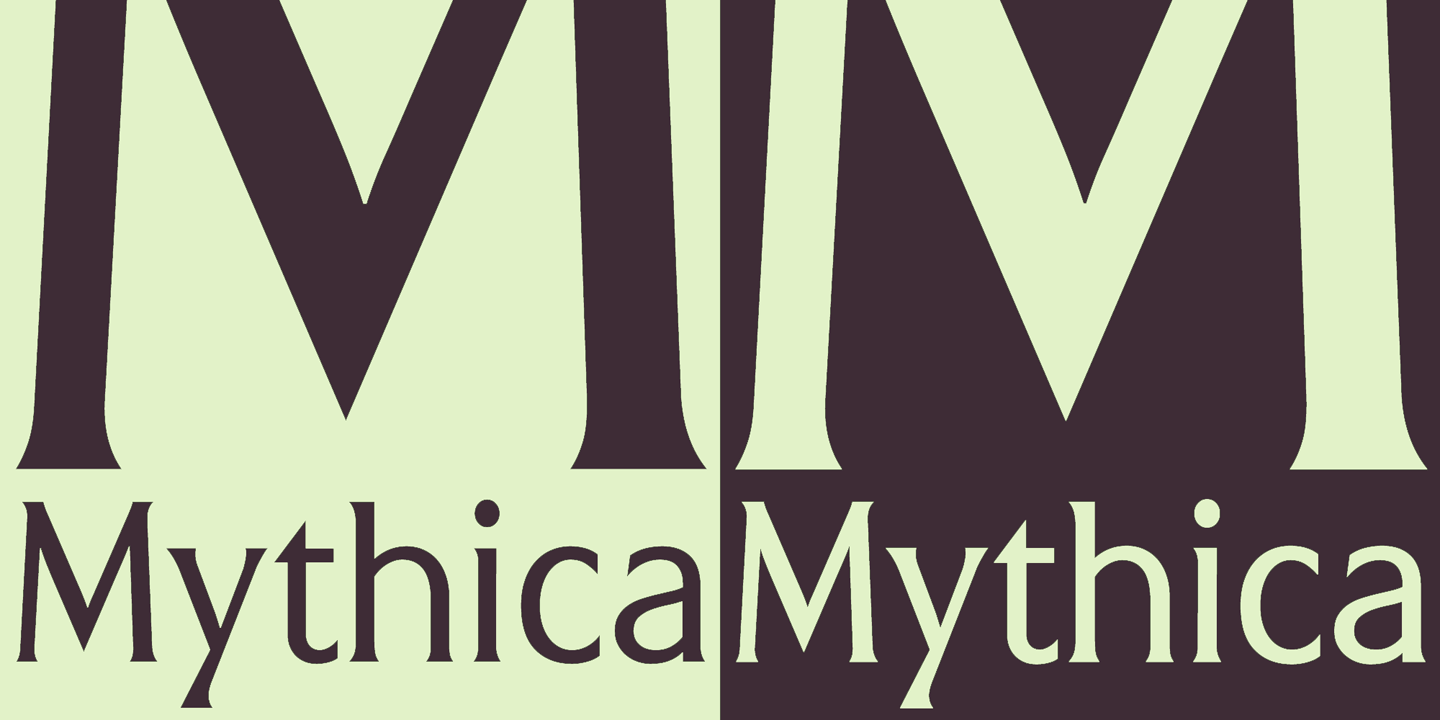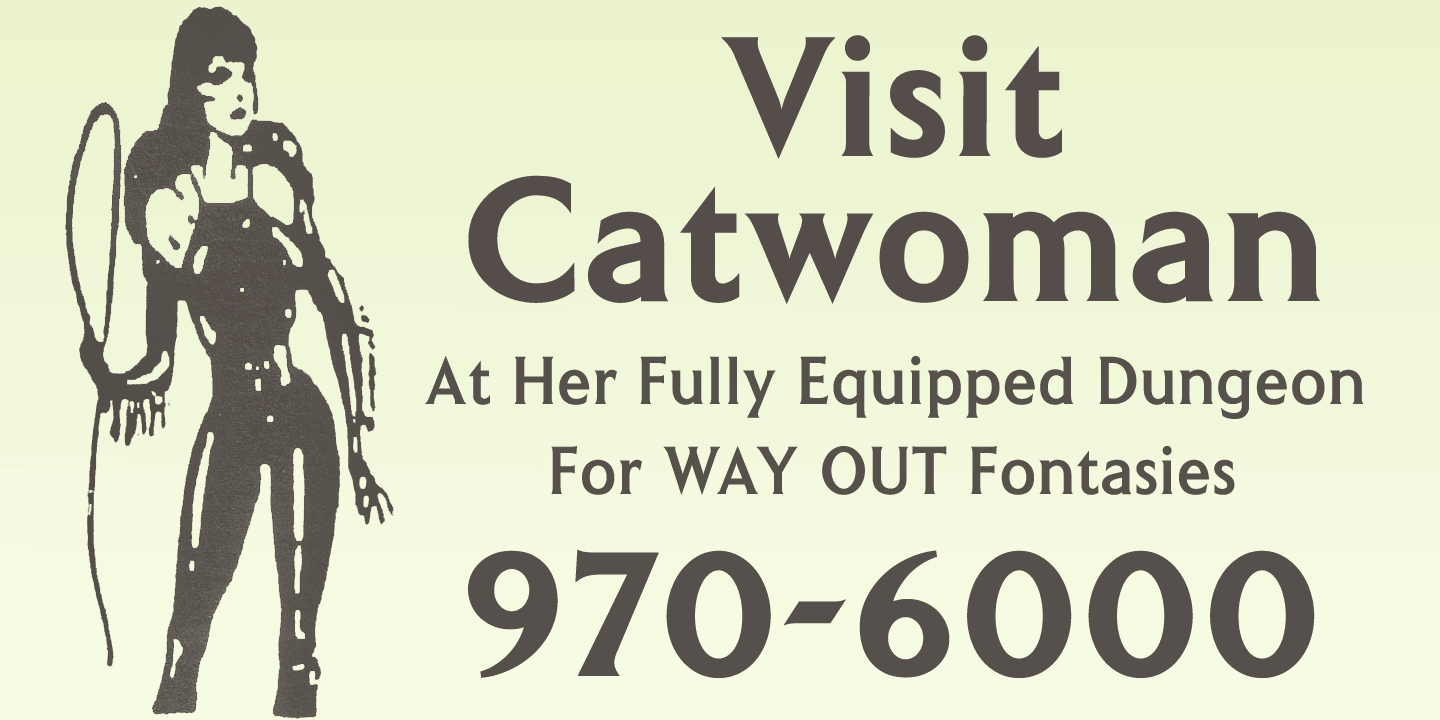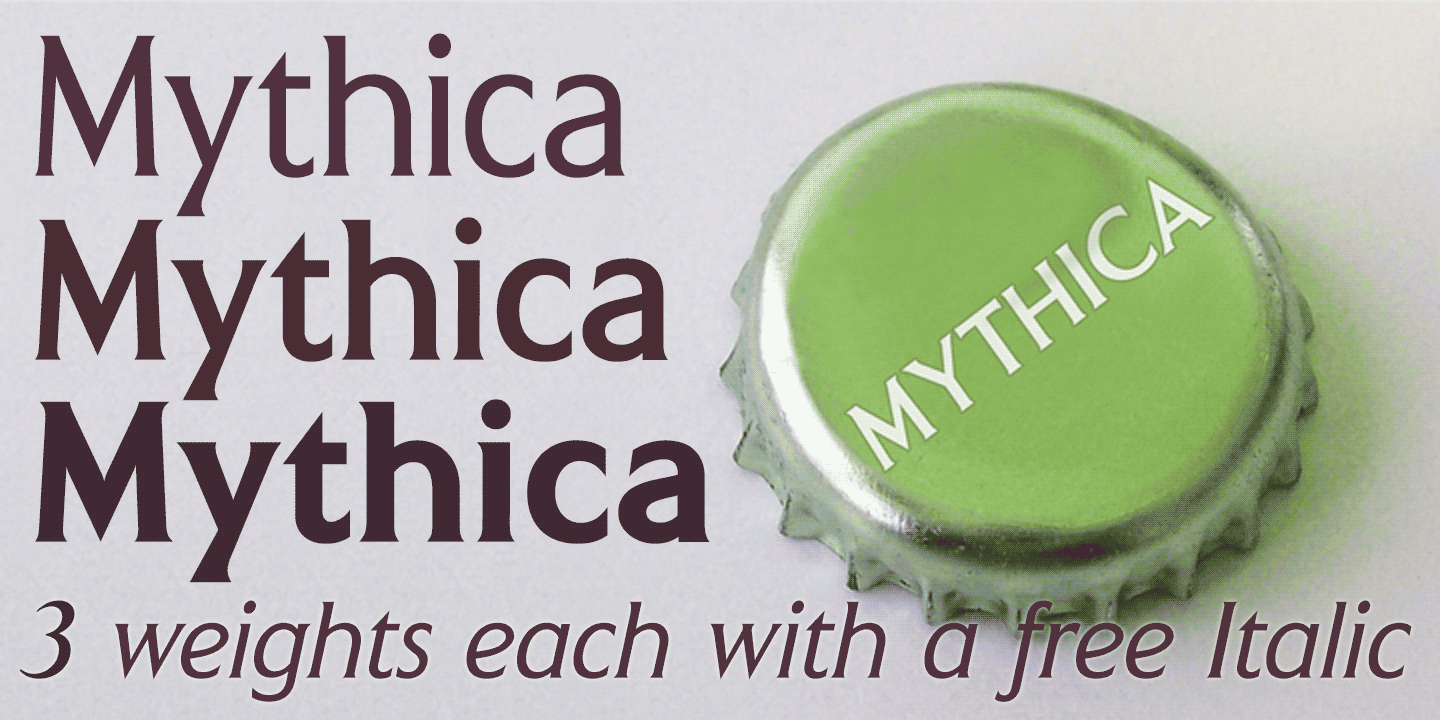
Mythica
About Mythica
Mythica is a slightly condensed roman with spur serifs, derived from incised lettering on early twentieth century memorial stones and monuments. The typeface is available in 3 weights each with a complimentary Italic.